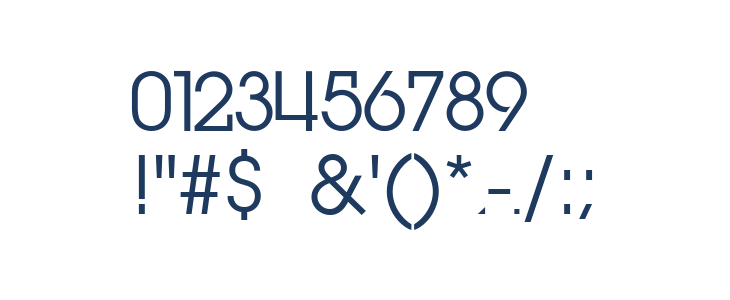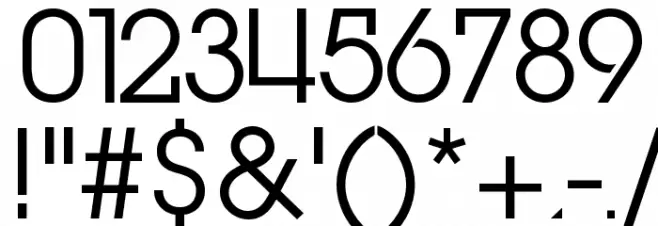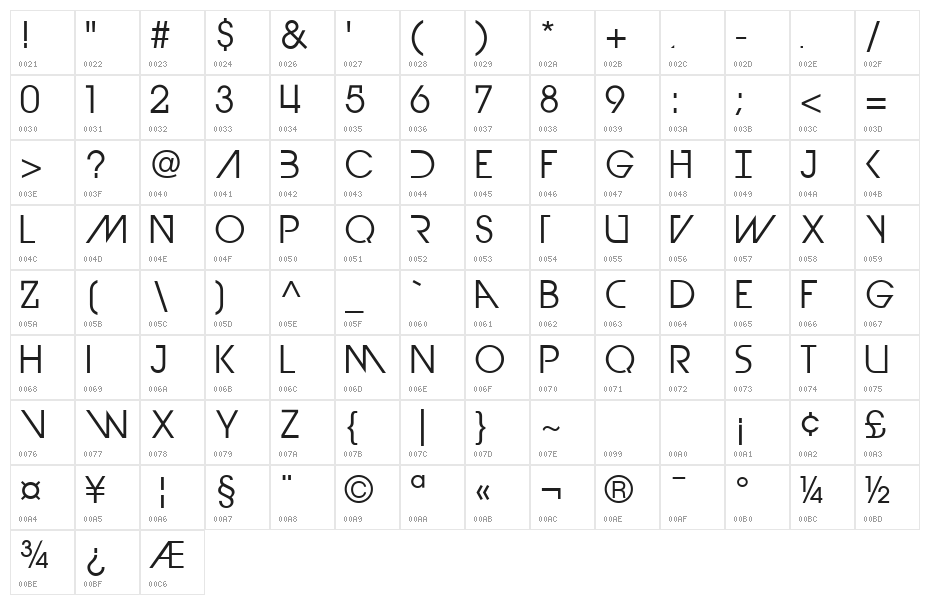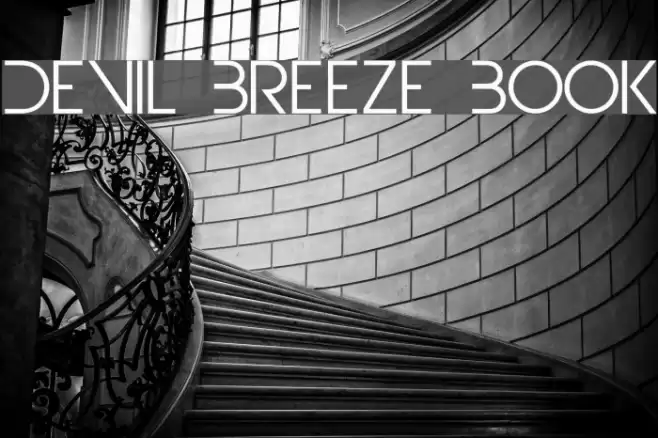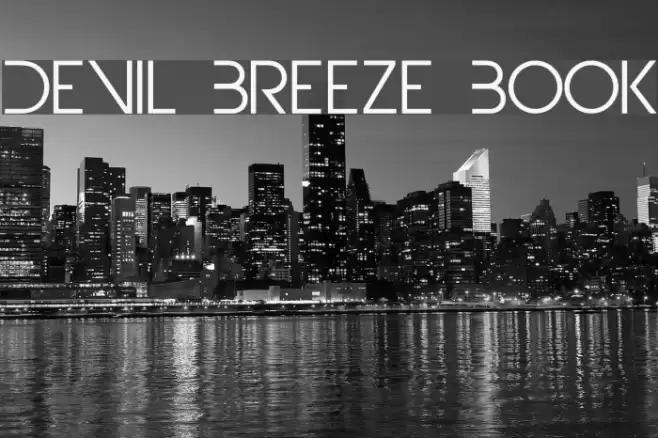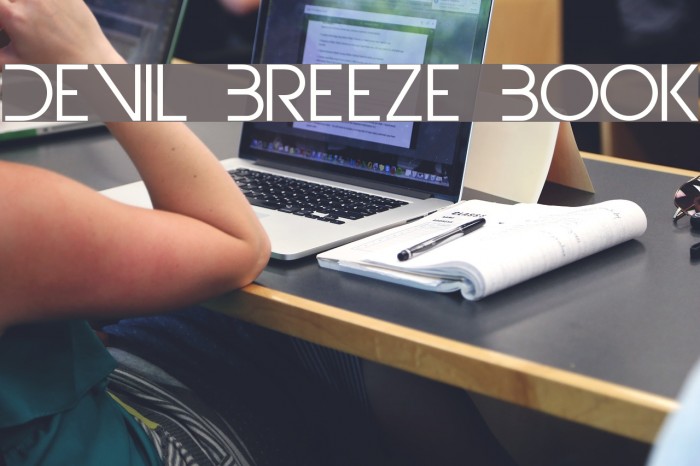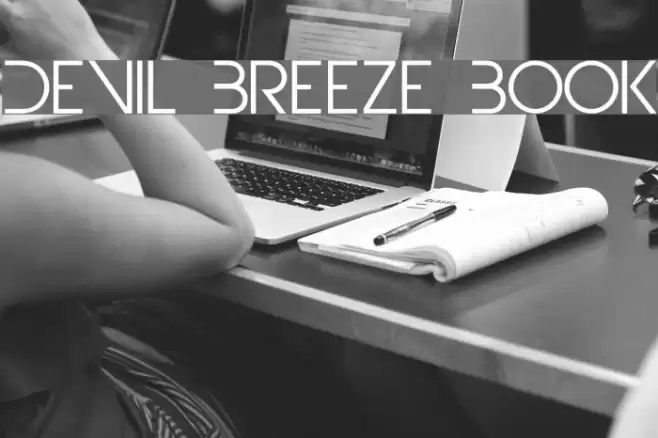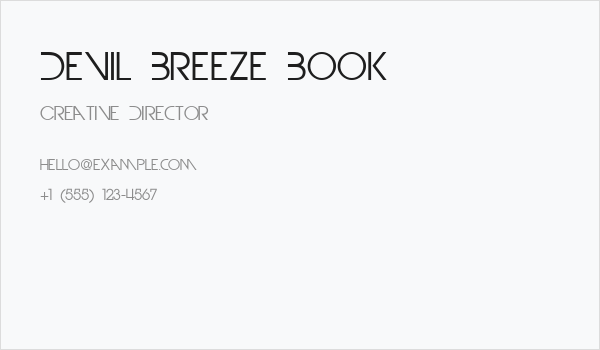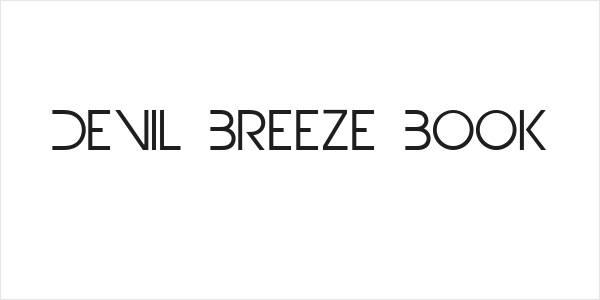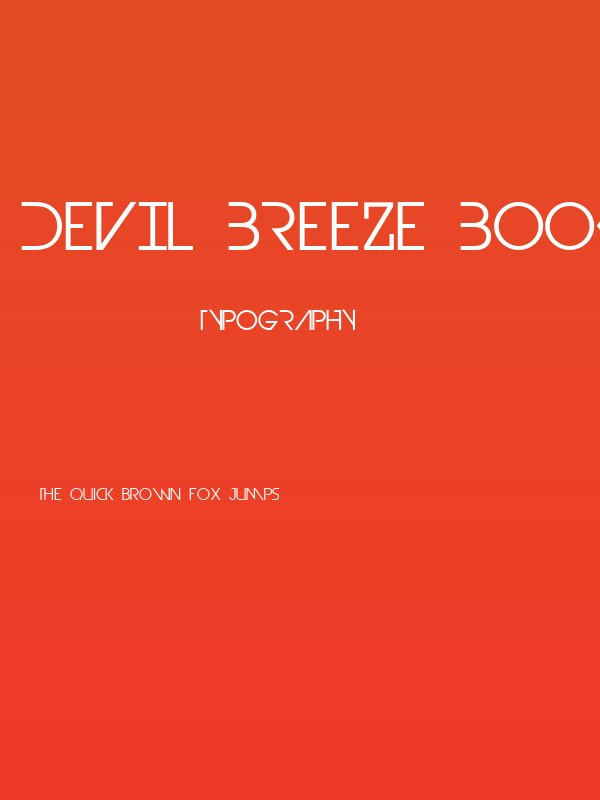
Devil Breeze Book Font
Devil Breeze Book Description
This font exhibits a modern and geometric style, characterized by clean lines and angular shapes. The uppercase letters are distinct with sharp angles and a futuristic aesthetic, while the numbers maintain a consistent design that complements the alphabet. The special characters are crafted to match the overall sleek and contemporary feel. The font's design is minimalistic yet striking, making it suitable for projects that require a bold and modern look. Its unique style is both eye-catching and versatile, allowing for creative applications in various design contexts.
Proposed ProjectsIdeal for branding, advertising, posters, and digital media projects that require a modern and futuristic aesthetic.